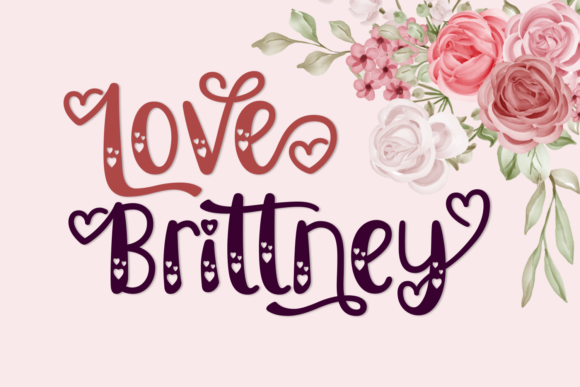
Looking for the best font to make your posters pop? Look no further than Love Brittney Font! Created by Situjuh, this chic and romantic decorative font is the perfect choice for anyone looking to add a touch of romance to their designs.
Love Brittney Font features tiny hearts on each element, adding a touch of whimsy and charm to any project. And with PUA encoding, accessing all of the glyphs and swashes is a breeze, making it easy to customize your design and create a truly unique look.
But Love Brittney Font isn't just about looks – it's also a highly functional font that can be used for a wide range of projects. Whether you're designing posters, flyers, invitations, or anything else, this versatile font is sure to impress.